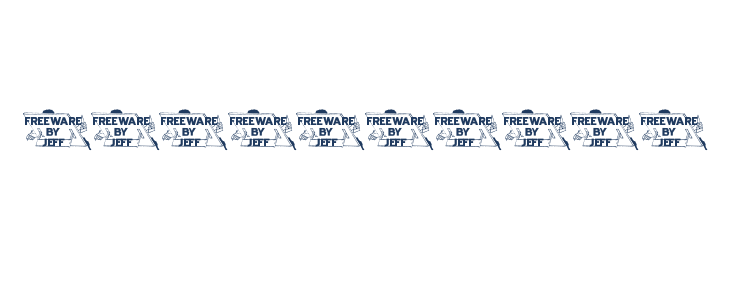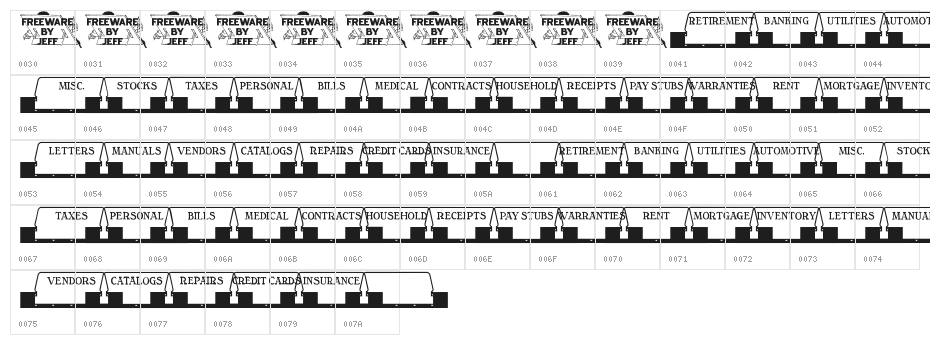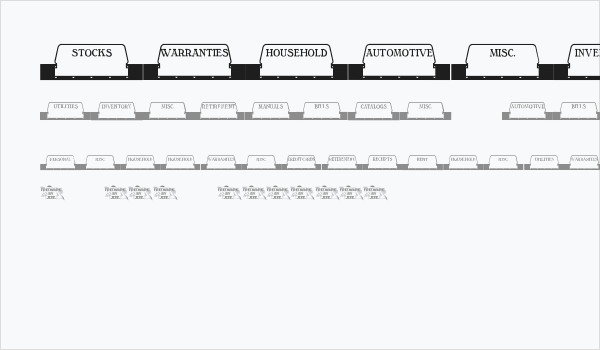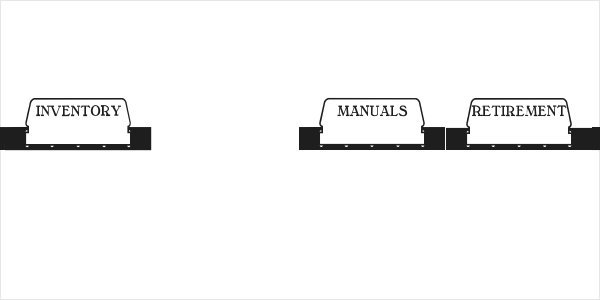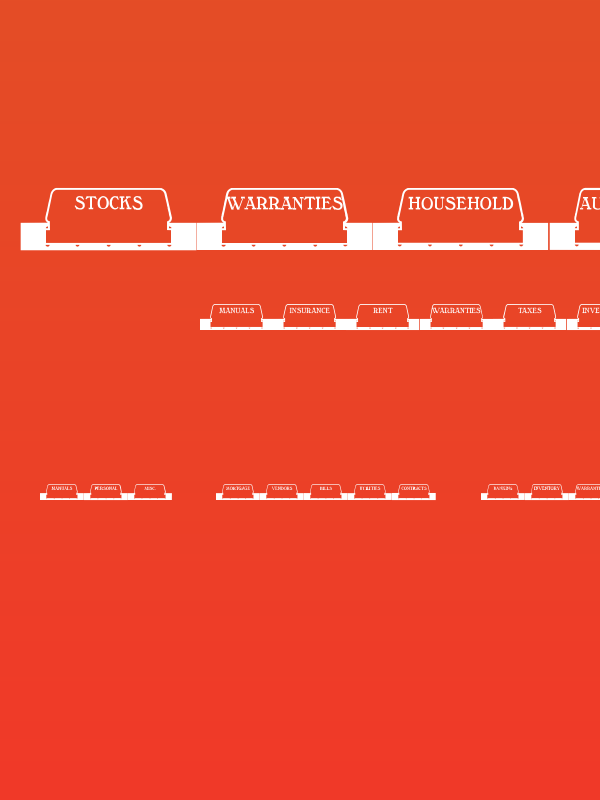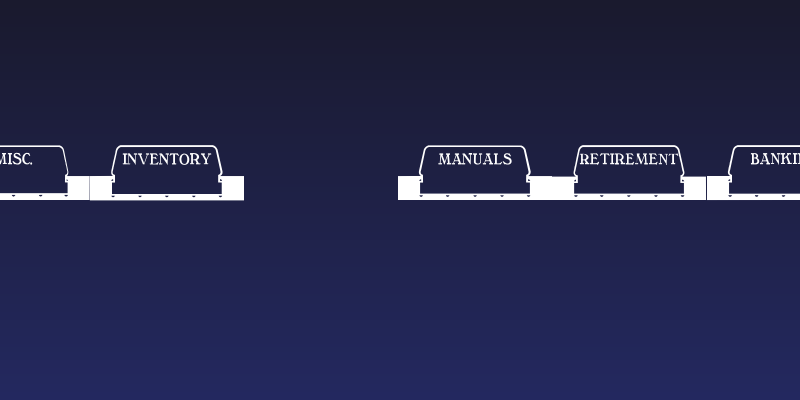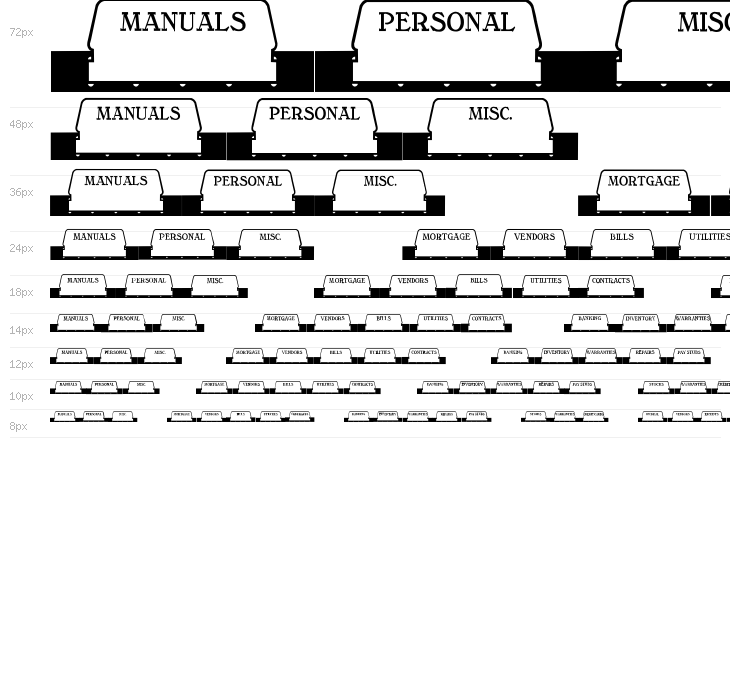
Folder Tabs JL Font
Folder Tabs JL Description
This font is designed to mimic the appearance of labels on folder tabs, providing a practical and organized look. The characters are uppercase and evenly spaced, with a clean and straightforward design that enhances readability. The font has a uniform stroke width, contributing to its clarity and simplicity. It is ideal for creating labels, organizing documents, or any project that requires a neat and professional appearance. The style is functional and minimalistic, focusing on utility rather than decorative elements.
| Overall Style | Functional |
| Use Case | Labels, Document organization |
| Proposed Projects | Perfect for office labels, document organization, educational materials, and any project requiring a clear and structured appearance. |